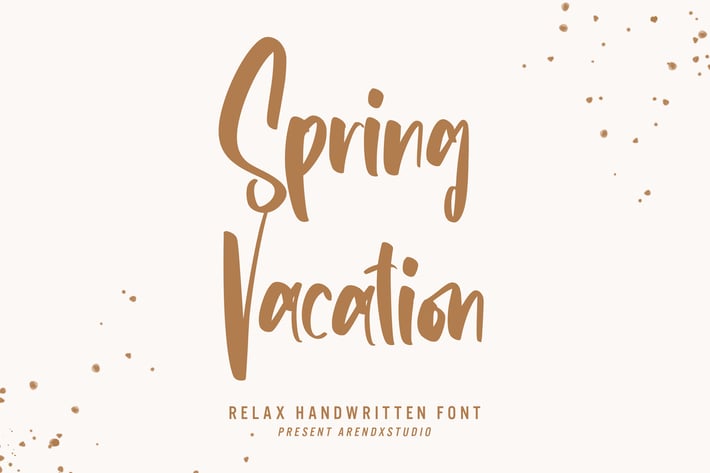
Spring Vacation - Relax Handwritten Font
Spring Vacation - Relax Handwritten Font that has a distinctive character that is very thick and elegant to use
Spring Vacation is a relaxed and flowing Handwritten Font. Incredibly versatile, this font fits a wide pool of designs, elevating them to the highest levels. Add this font to your favorite creative ideas and notice how it makes them come alive!